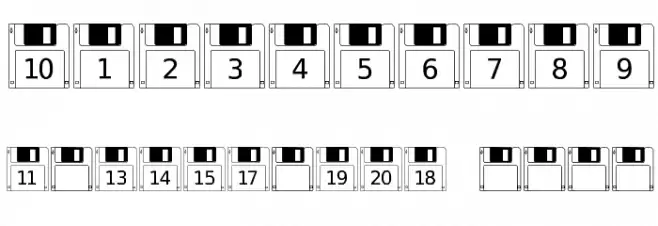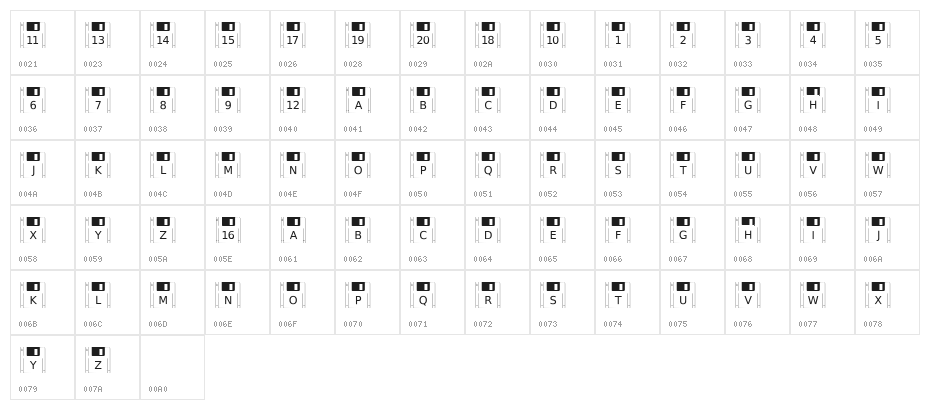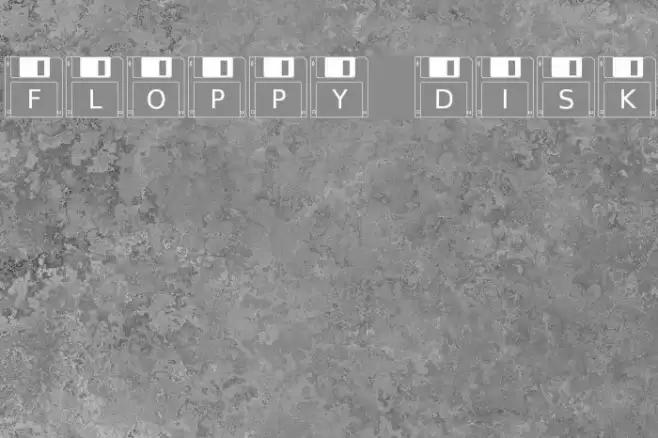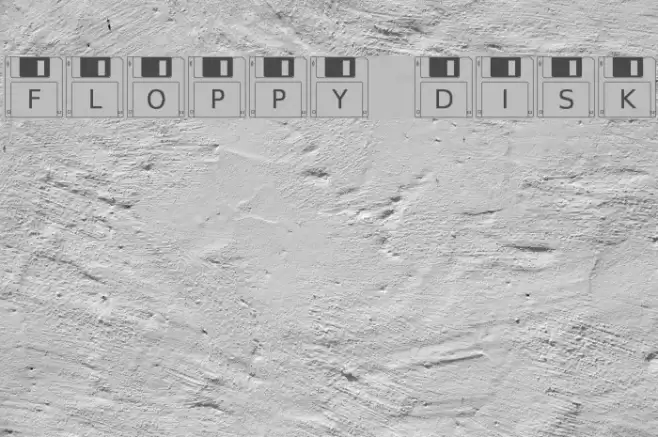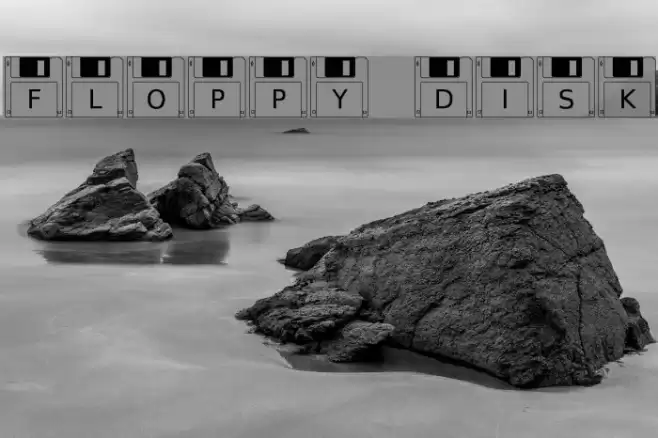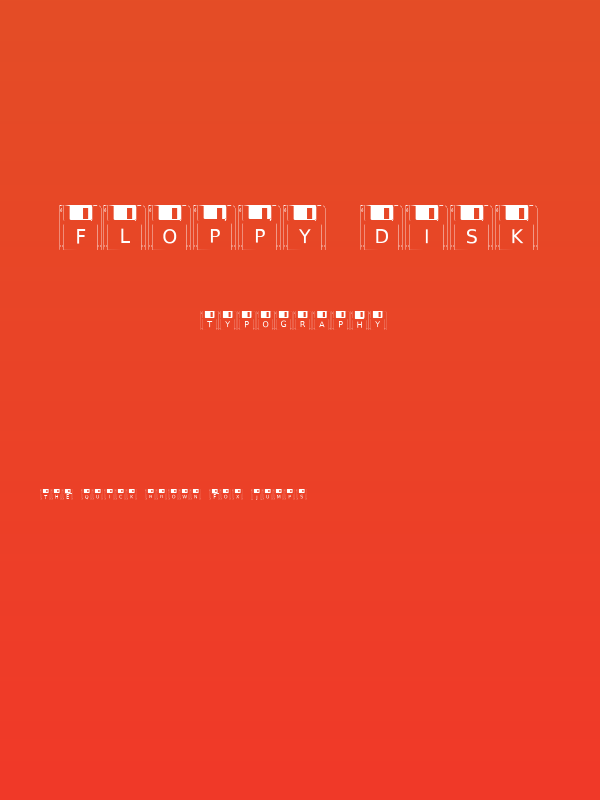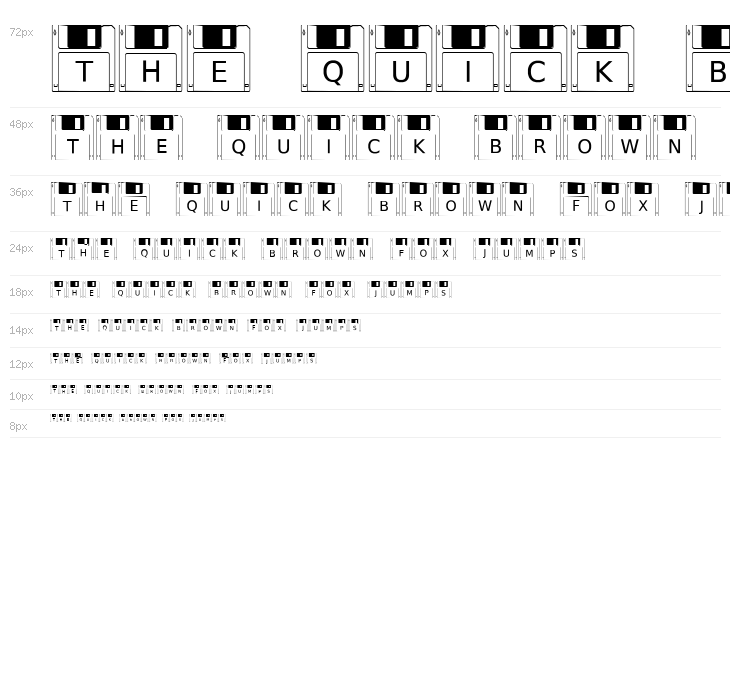
Floppy Disk Font
Floppy Disk Description
This unique font is designed with each character embedded within the iconic shape of a floppy disk, creating a nostalgic and tech-inspired aesthetic. The letters and numbers are bold and clear, ensuring readability while maintaining a playful and retro vibe. The design cleverly integrates the floppy disk's features, such as the shutter and label area, with the characters, making it ideal for projects that aim to evoke a sense of nostalgia or pay homage to vintage technology. The font's distinct style makes it suitable for creative and thematic designs, particularly those related to technology, gaming, or retro themes.
| Overall Style | Retro, Tech-inspired |
| Use Case | Logos, Posters, Branding |
| Proposed Projects | Ideal for retro-themed posters, tech event branding, vintage video game graphics, and nostalgic merchandise designs. |